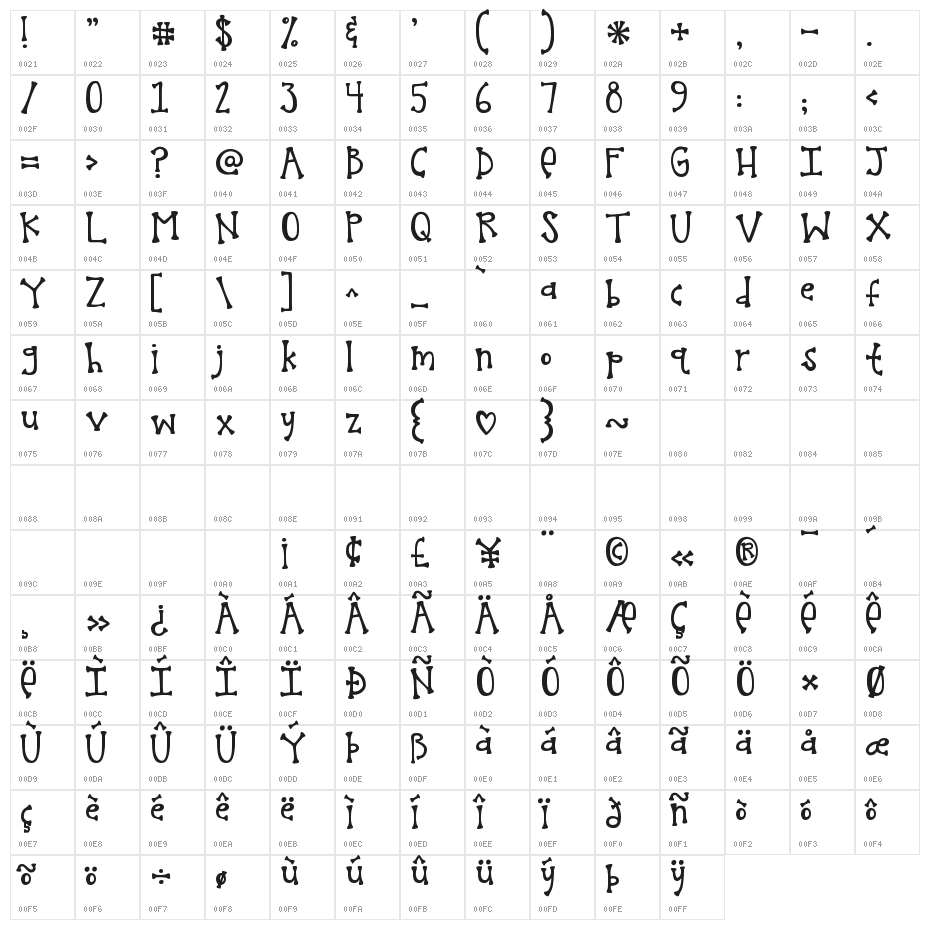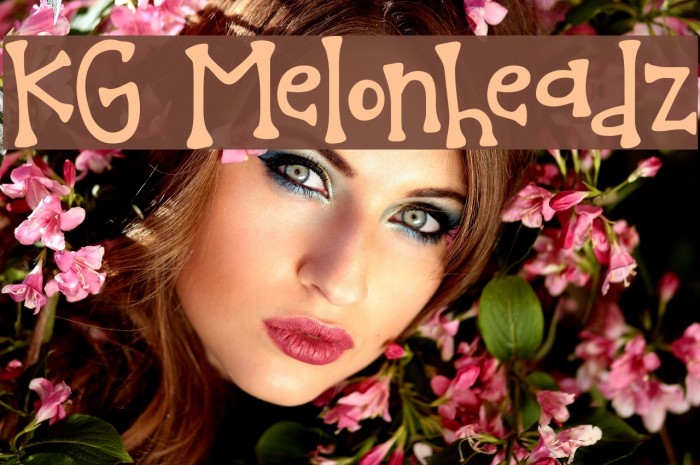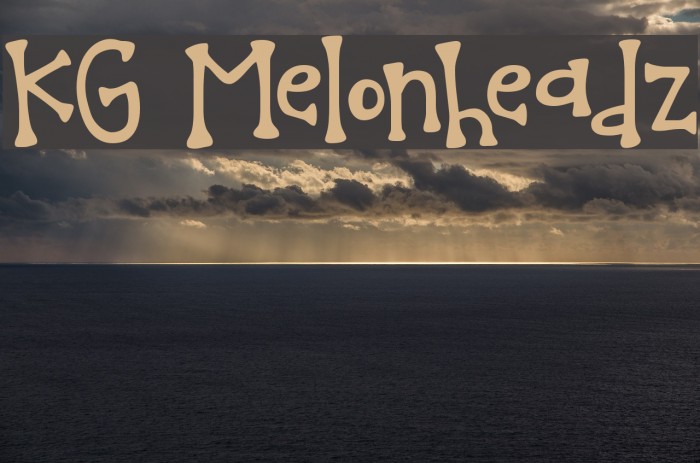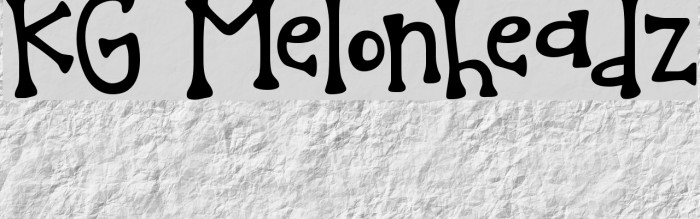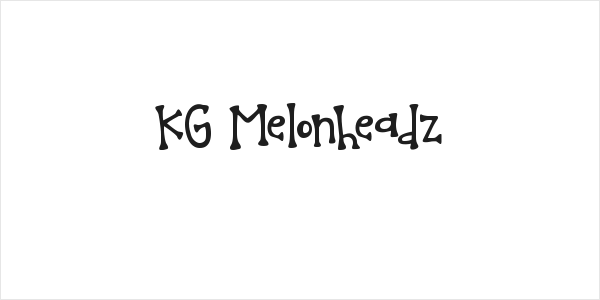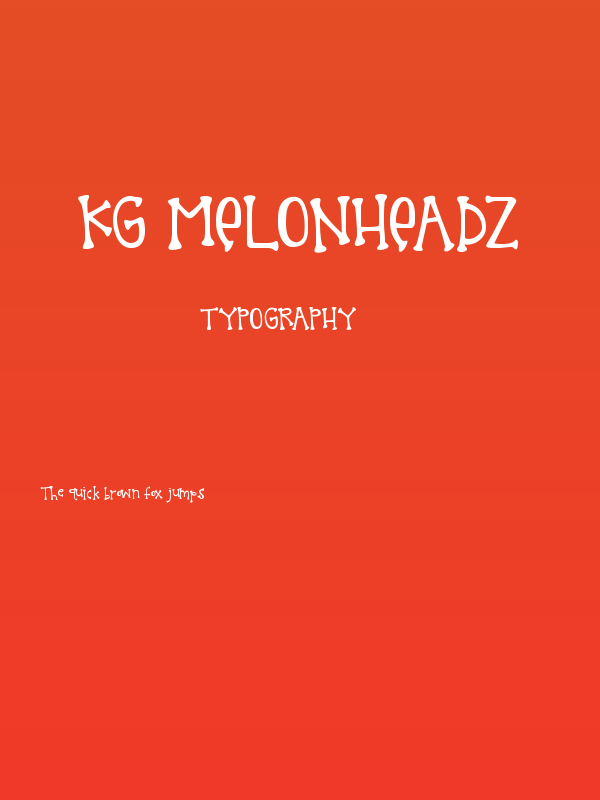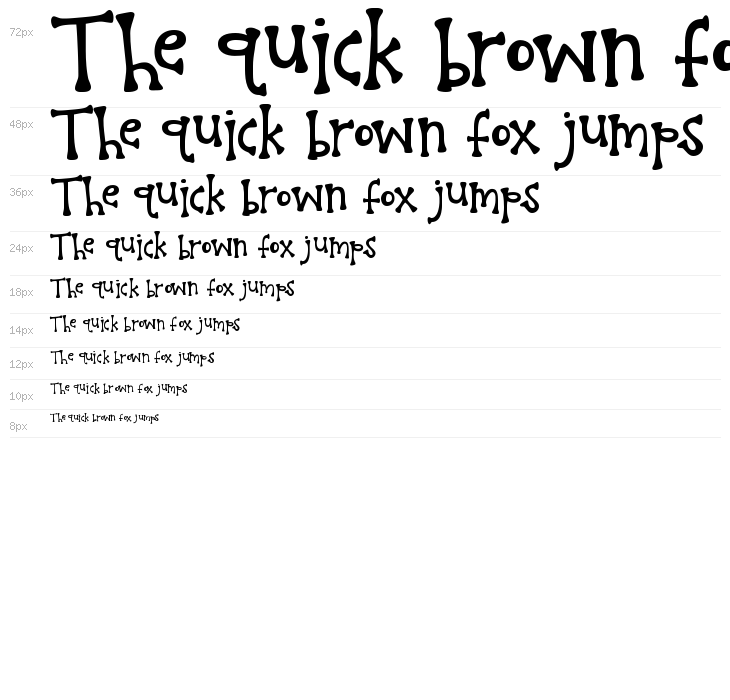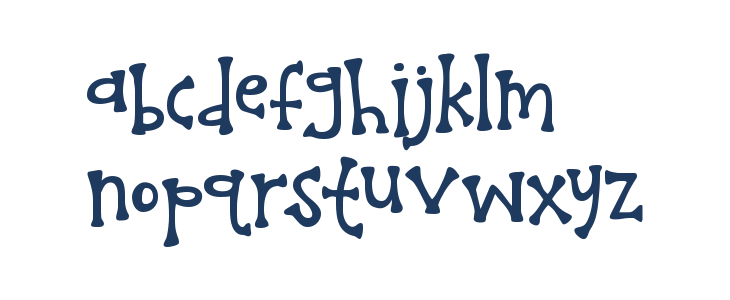
KG Melonheadz Font
KG Melonheadz Description
This font features a playful and whimsical design, characterized by its irregular and hand-drawn appearance. The letters have a casual, friendly feel with uneven strokes and varying heights, giving it a unique and informal style. The uppercase and lowercase letters maintain a consistent theme, with rounded edges and a slightly bouncy baseline. Numbers and special characters follow the same playful aesthetic, making it suitable for creative and fun projects. The font's overall look is approachable and lively, perfect for adding a touch of personality to any design.
| Proposed Projects | Ideal for children's books, playful branding, greeting cards, and creative posters. |